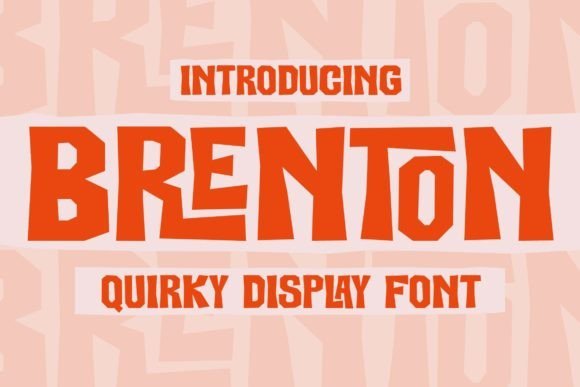
Introduction to Brenton Font
Brenton is a beautiful display font with a unique style and modern look.
It is perfect for elegant and luxury logos, book or movie title design, fashion brands, magazines, clothes, lettering, quotes, and much more Add it to any of your creative projects, and you will be amazed by the results.